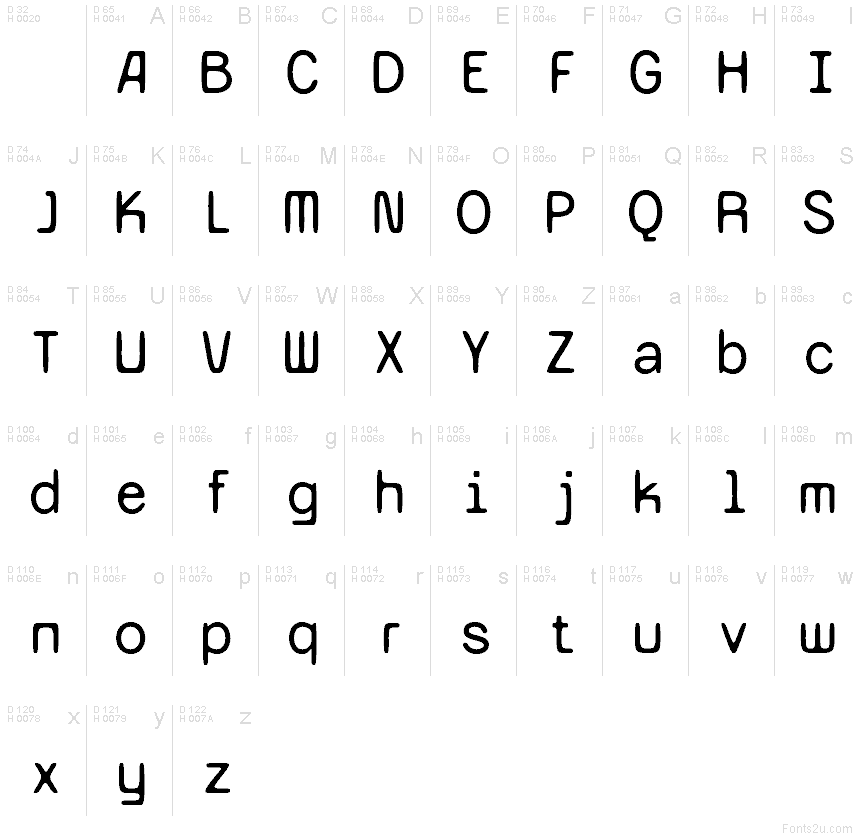
CSDaineMonoDrawn-Regular Demo
CS Daine Mono Drawn font by Craft Supply Co. is a free display font with not-so-heavy contrasting strokes and rounded serifs. Its casual elegance gives it nice readability, appropriate in most cases, especially at the larger sizes as a headline of its own. Transform any textual project from typical to advanced with this versatile tool.
CS Daine Mono is usable in logotypes, branding projects (packages and labels), web designs: UI and UX design interfaces, mobile apps, book covers and inner pages, magazines’ covers/titles/content pages/designs, or printed hard/softcover novels texts for personal use or public distributions.